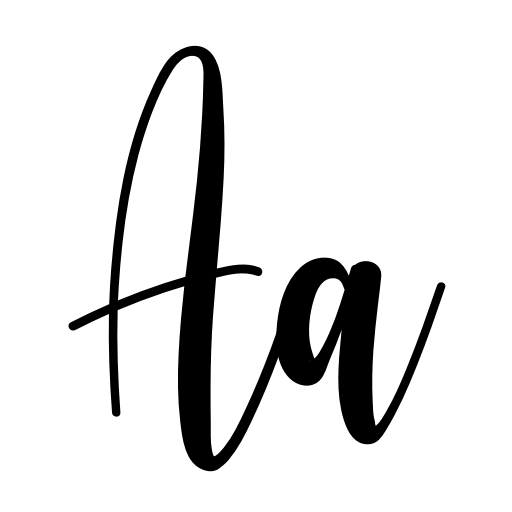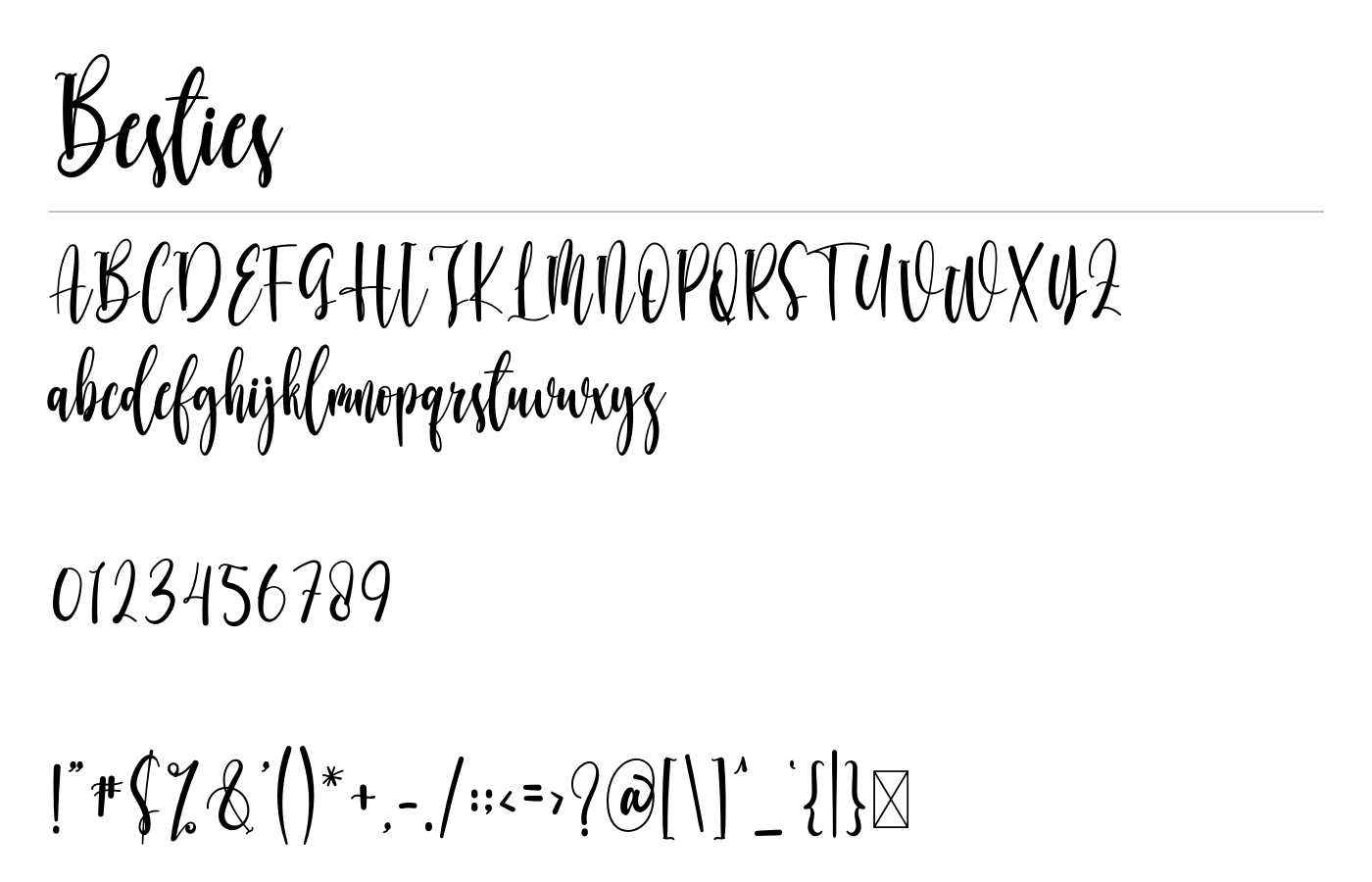
Besties Font is a playful and elegant script typeface with a hand-drawn feel, featuring tall, flowing letterforms and smooth, varied strokes that give it a lively yet refined personality. Its slender, modern style is perfect for creating warm, friendly branding, invitations, and creative projects that require a personal touch. This font works beautifully in logos, social media graphics, and headlines where a casual yet stylish vibe is desired.
Besties Font
About Besties Font